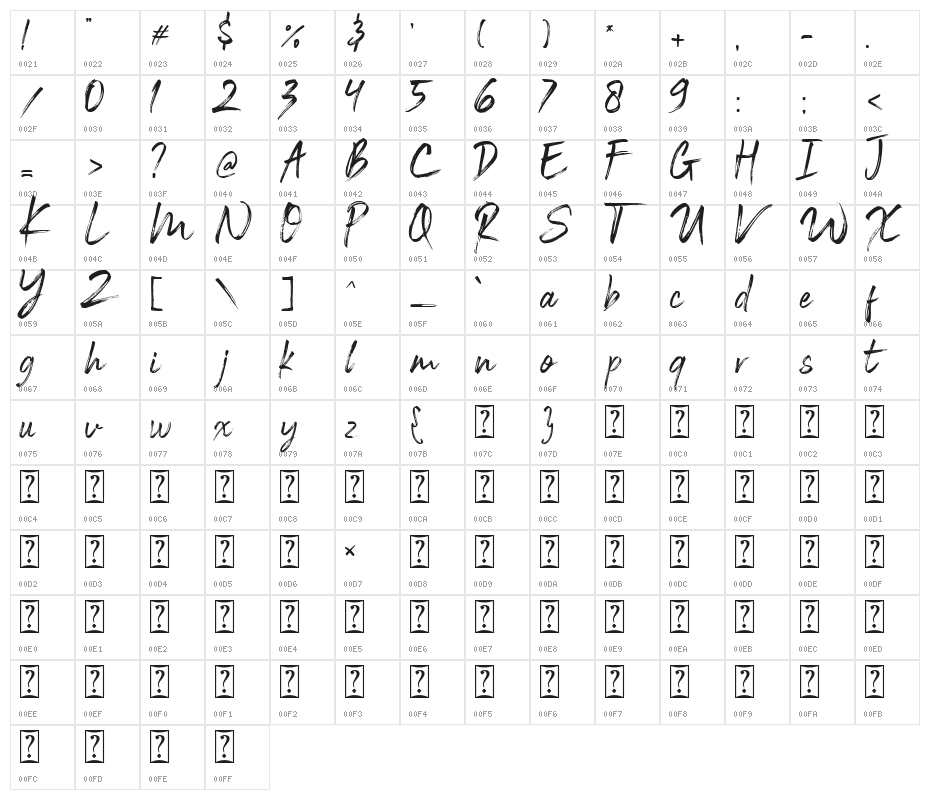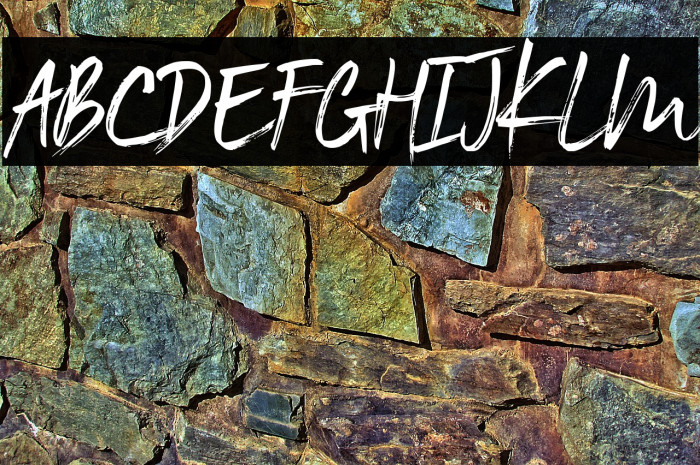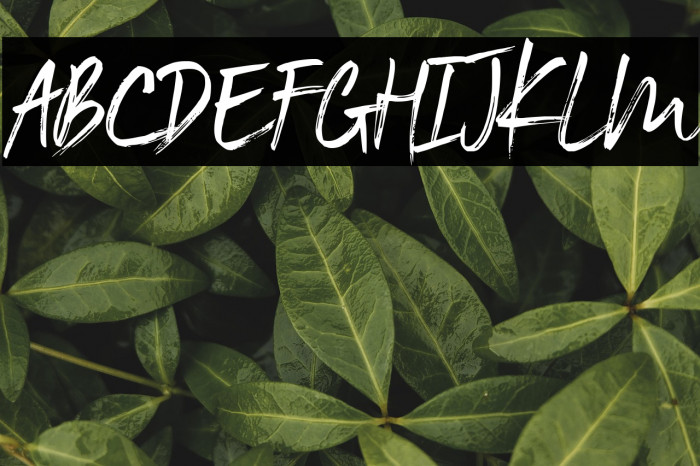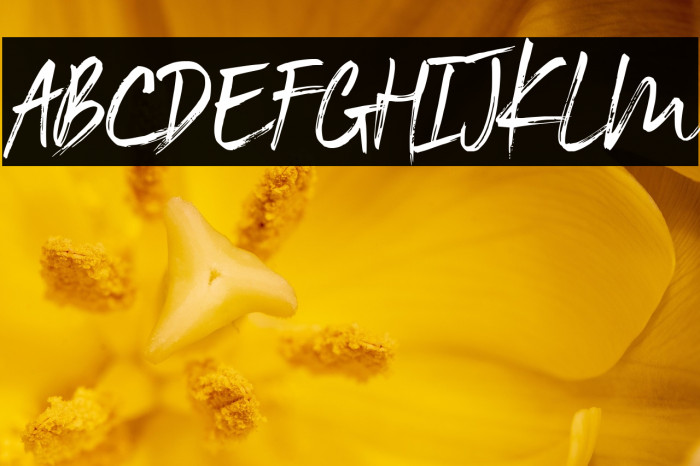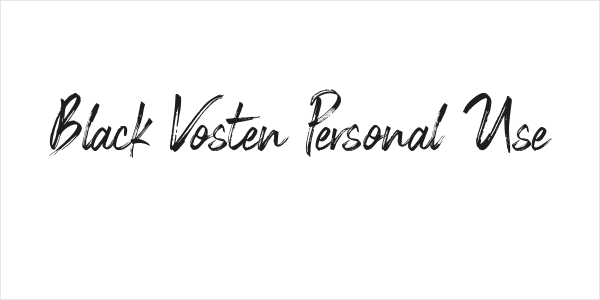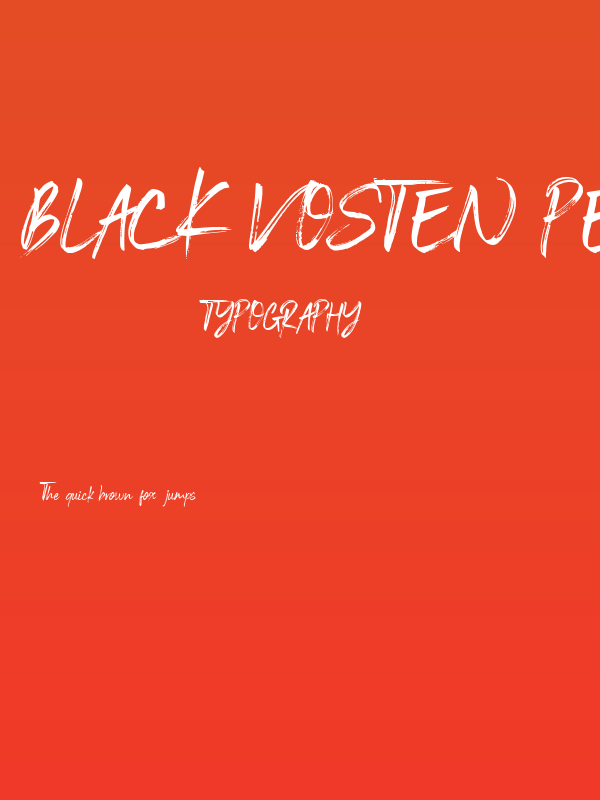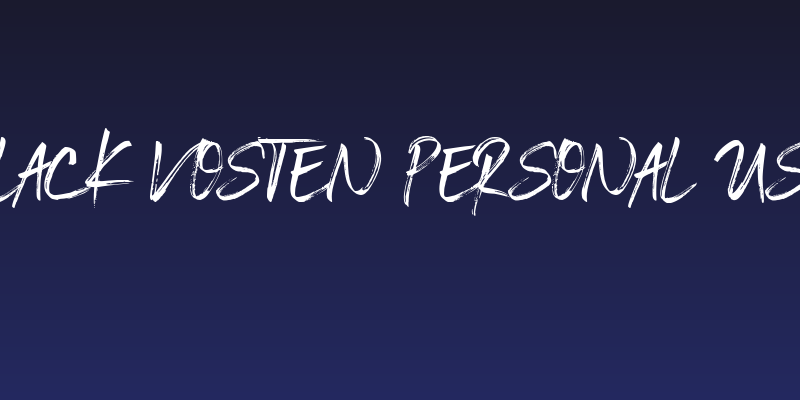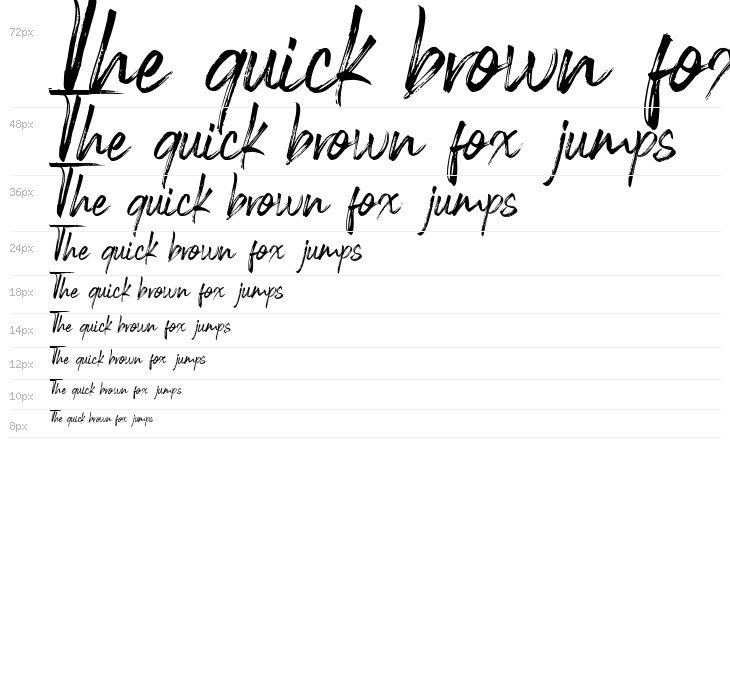
Black Vosten Personal Use Font
Black Vosten Personal Use Description
This font exhibits a dynamic and expressive handwritten style, characterized by its bold and energetic brush strokes. The letters have a fluid and organic appearance, with varying thicknesses that create a sense of movement and spontaneity. The uppercase and lowercase letters maintain a consistent style, while the numbers and special characters integrate seamlessly with the overall design. The font's artistic flair makes it suitable for creative and informal applications, where a personal touch is desired.